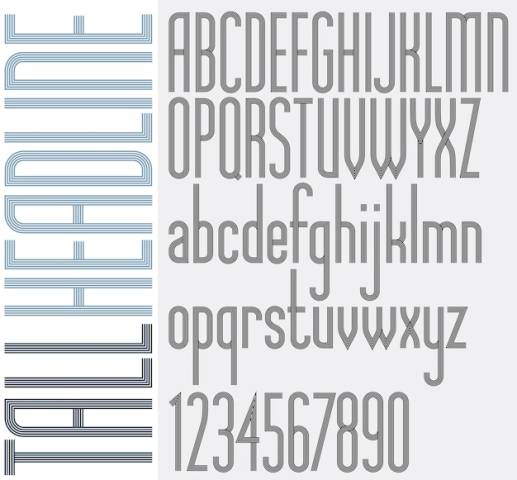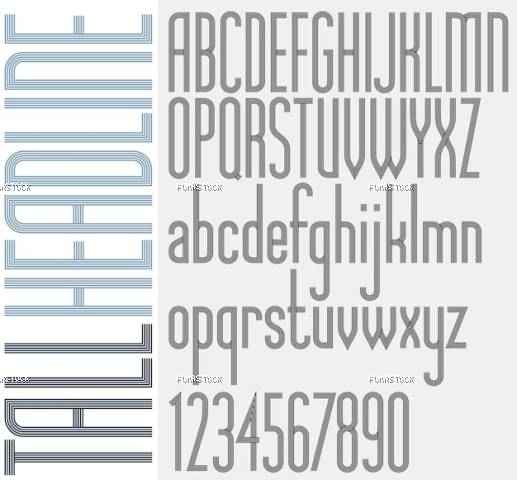
tall stripes headline retro style light condensed font, stylish and trendy letters design. best for use in advertising and graphic print or web design. vector.